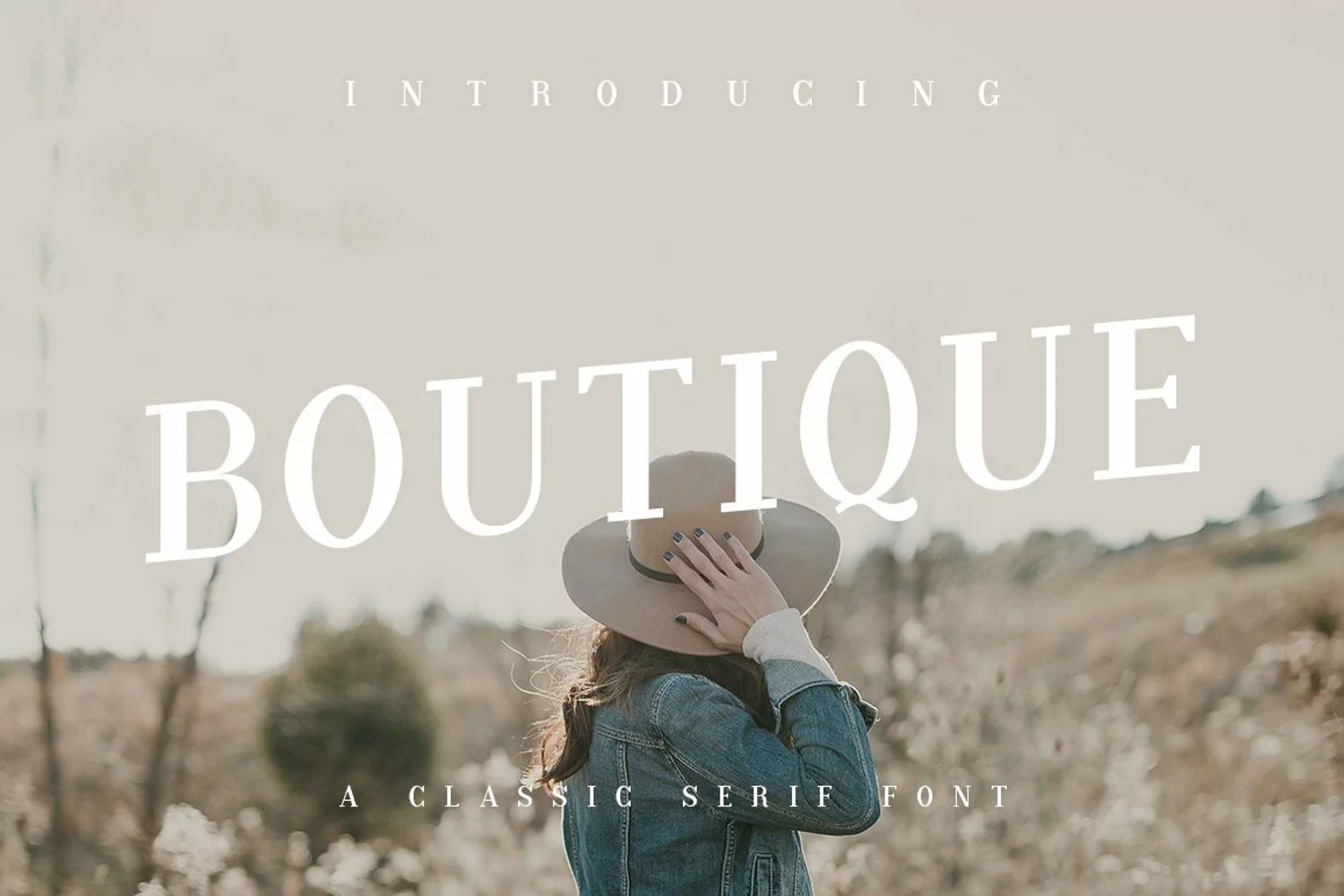
Boutique is a classy and sofisticated serif font, perfect for magazines, leaflets, menus, leaflets, promo images and more. With Western European Character Support you will find Boutique the perfect font for many projects.